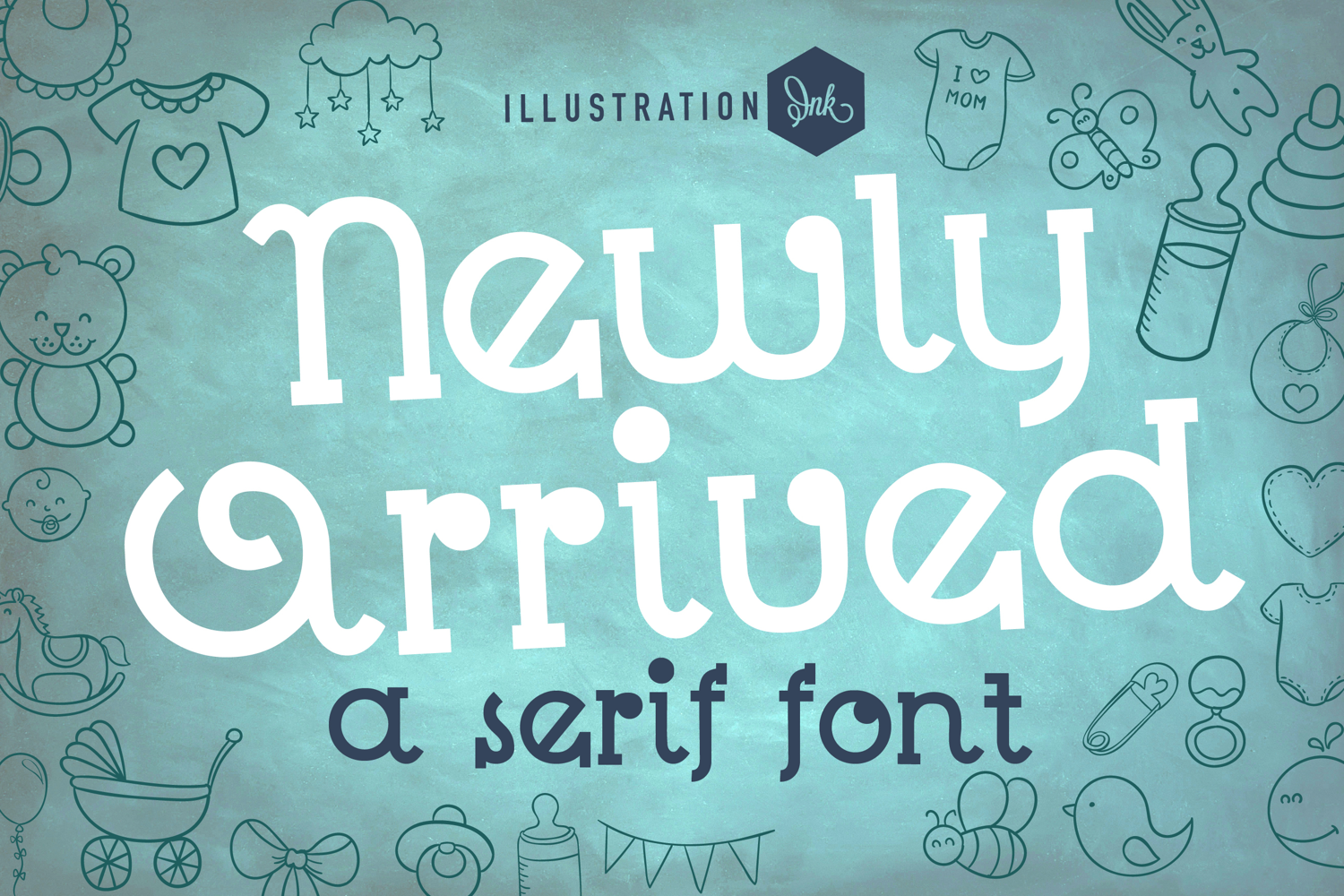
ZP Newly Arrived
This hand-crafted font is a crafty serif with a modern feel and finials throughout.
• The letters are not perfectly uniform in size or shape.
• There may be slight variations in the spacing between letters and words.
• The font may have a "wiggly" or "squiggly" appearance.
• The font may be difficult to read at small sizes.